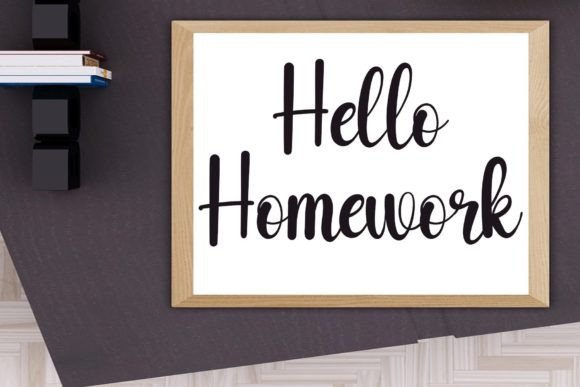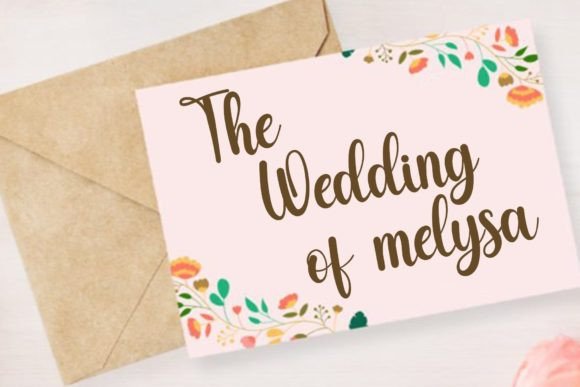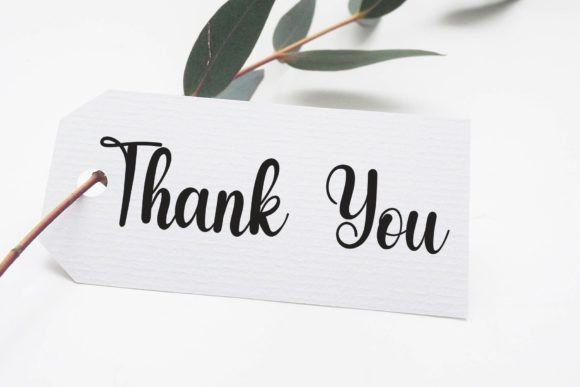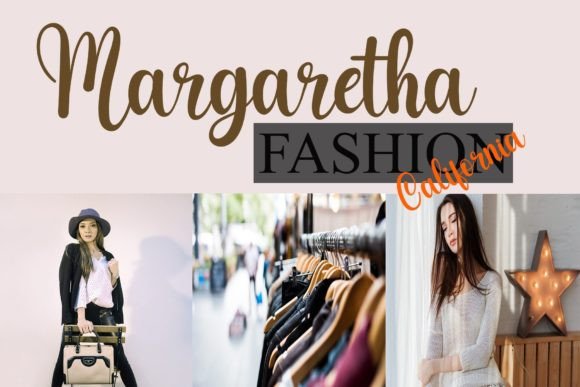
Autography Font
“Autography” is a sweet, romantic, and beautiful script font that captivates with its stunning features. Each letter boasts beautiful curves, creating an aesthetic that is perfect for a range of design applications. This font’s enchanting style makes it particularly well-suited for wedding invitations, thank you cards, quotes, greeting cards, logos, business cards, and any other design that requires a delicate handwritten touch.
The curves in each letter of “Autography” contribute to its romantic and graceful appeal. The script style evokes a sense of sweetness, making it an ideal choice for projects that demand a touch of elegance and charm. Whether you’re crafting heartfelt messages for wedding invitations or adding a personalized touch to business cards, this font brings a unique and beautiful element to your designs.
Imagine the impact of “Autography” on your creative projects—it goes beyond being a font; it becomes a key element that elevates your designs to new heights of romance and beauty. Let the stunning curves and sweet romantic vibe of “Autography” transform your projects into visually captivating expressions of elegance.
Incorporate “Autography” into your design toolkit, and experience the seamless fusion of romance and beauty. Whether you’re working on wedding-related materials or any other creative endeavor, let this font be the sweet and romantic script that adds a touch of grace to your designs.